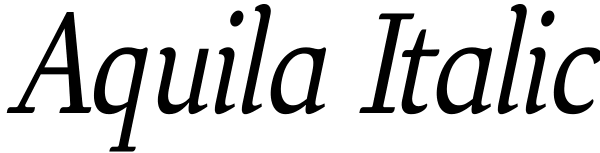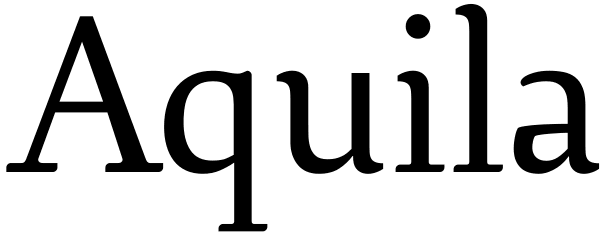
Aquila
Aquila is a highly legible serif typeface, designed with cursive letterforms in the italic version and without top serifs on the lower case characters giving it a more casual look.